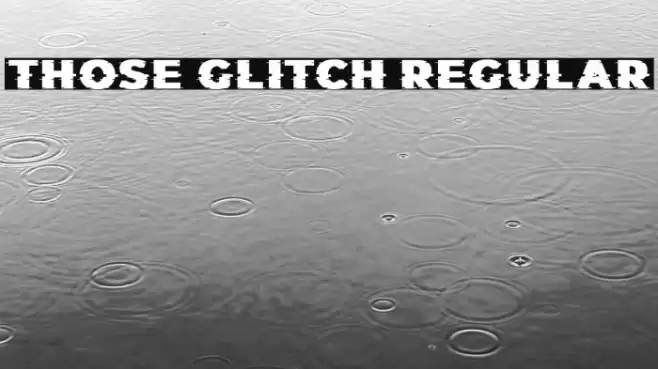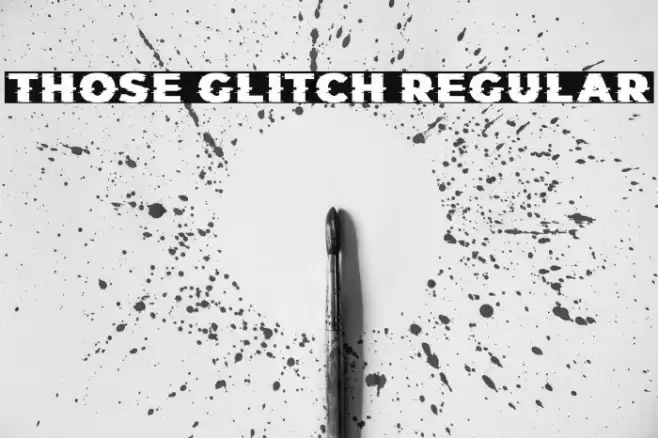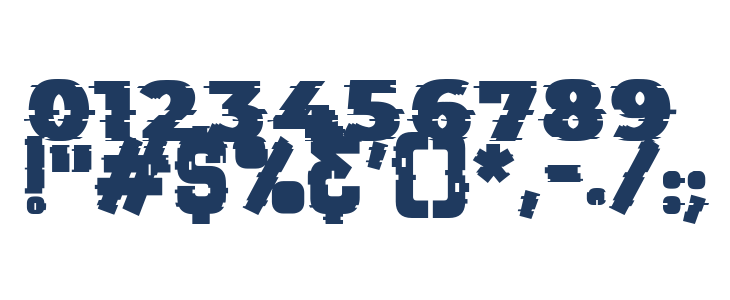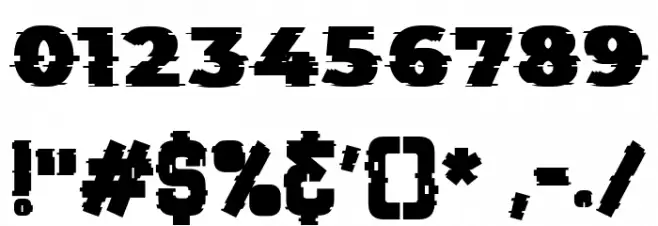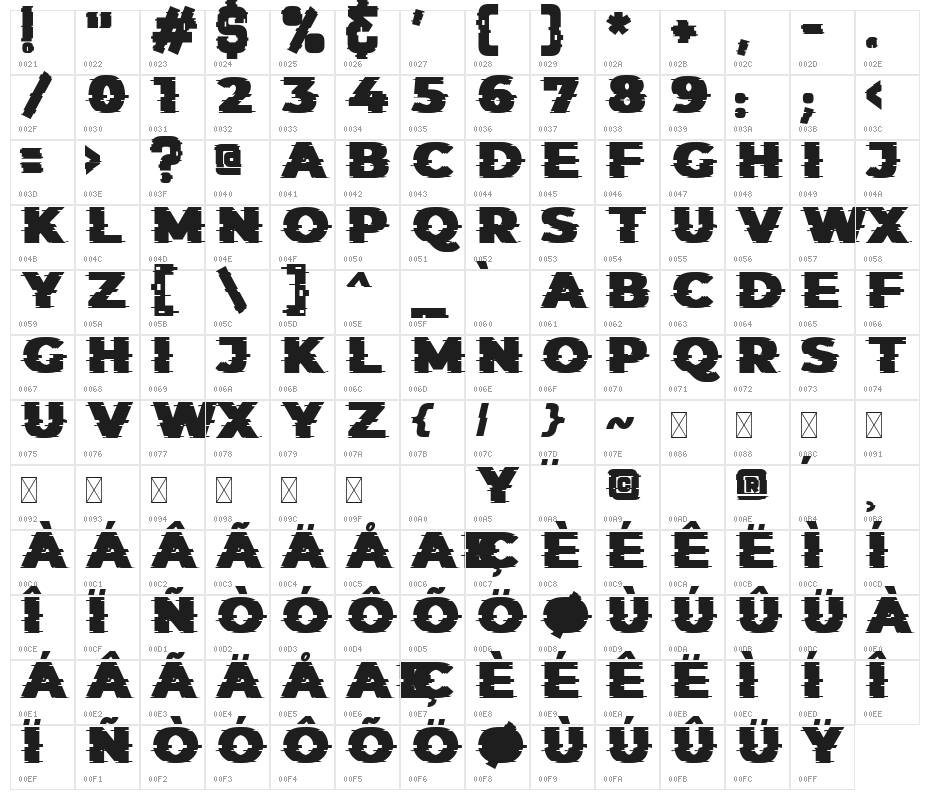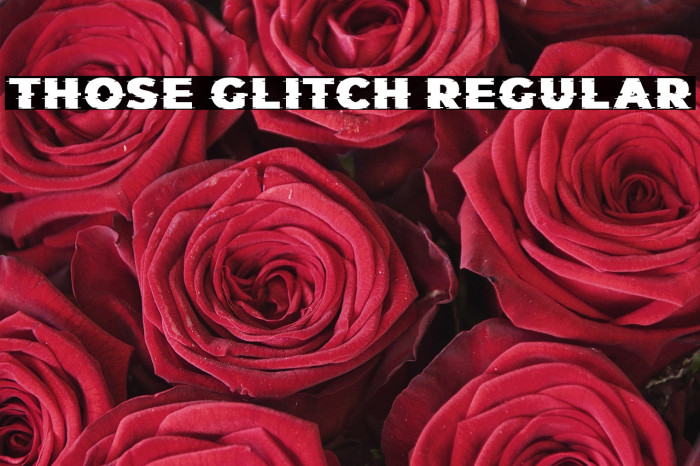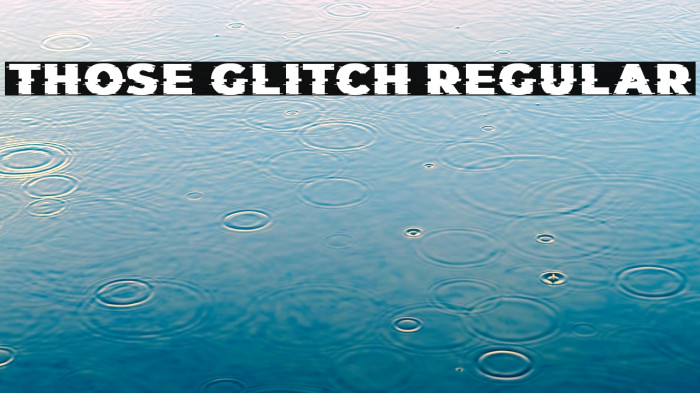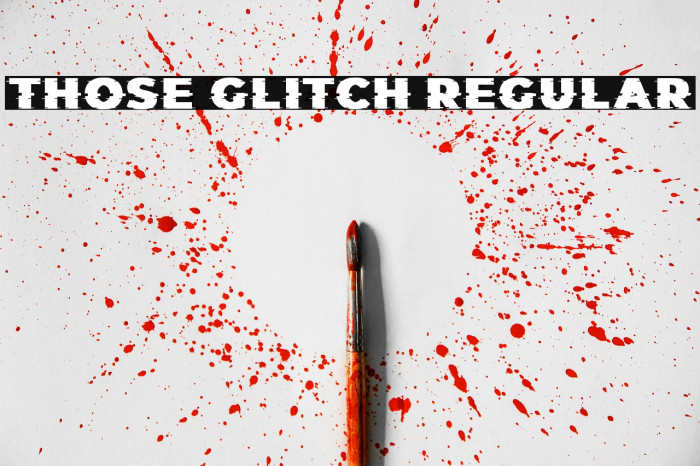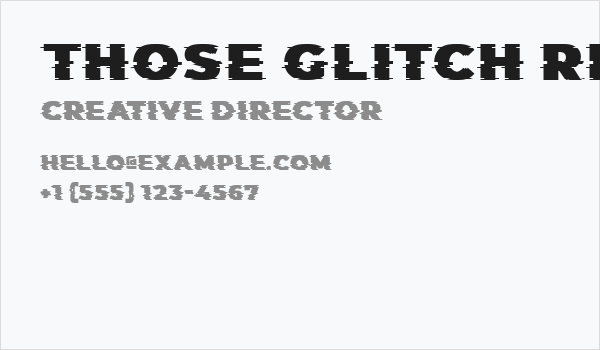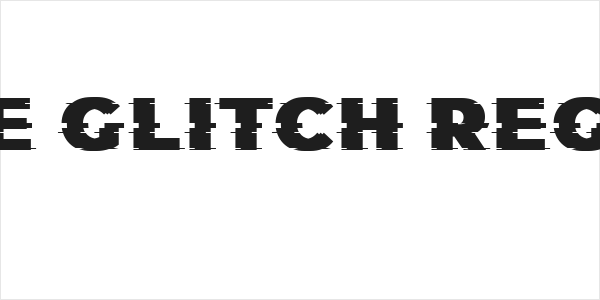
Those Glitch Regular Font
Those Glitch Regular Description
This font features a unique glitch effect, giving it a digital, distorted appearance. The characters are bold and blocky, with irregular horizontal lines that create a sense of movement and disruption. The uppercase and lowercase letters maintain a consistent style, while the numbers and special characters follow the same glitchy aesthetic. This font is eye-catching and modern, perfect for projects that require a futuristic or tech-inspired look.
A bold, glitch-effect font with a digital, distorted style from Uncategorized fonts.
- Font: Those Glitch Regular
- Proposed Projects: Ideal for digital art, tech-themed posters, video game graphics, and edgy branding projects.